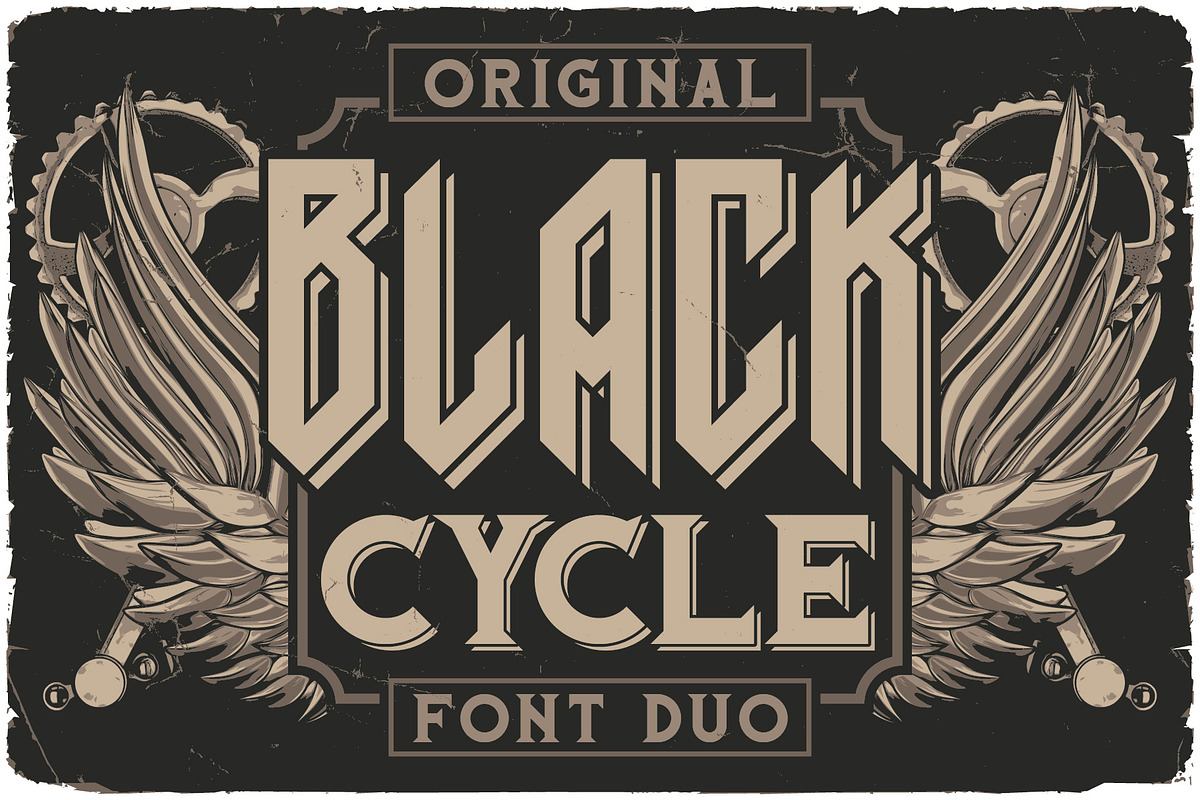
Black Cycle Font DUO Free Download is a powerful combination of two complementary typefaces—one bold and aggressive, the other sleek and modern. Designed with urban style and attitude in mind, this font duo is ideal for streetwear branding, music covers, sports graphics, automotive designs, and edgy social media content. It delivers a perfect mix of strength and style, allowing you to create impactful typography with contrast and flair.
The duo offers flexibility: use the bold version for attention-grabbing headlines, and the clean companion for supporting text or taglines. Whether you're working on a gritty poster or a high-energy logo, Black Cycle brings versatility and intensity to your design.